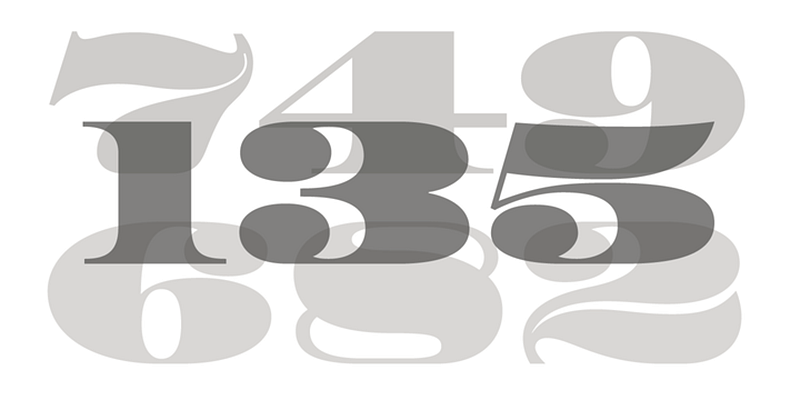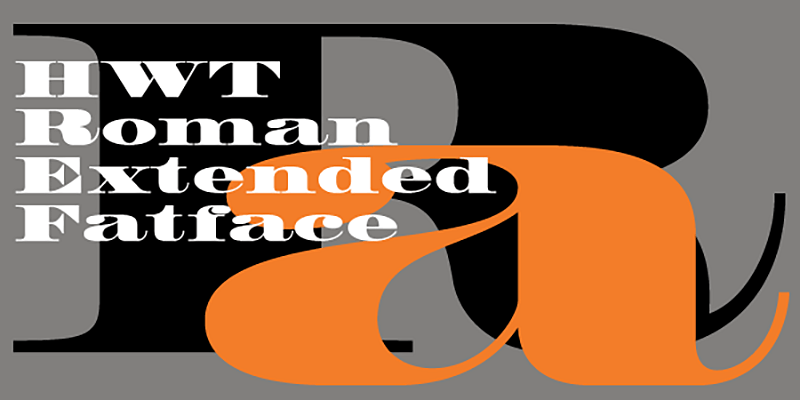
HWT Roman Extended Fatface is credited to Robert Thorne just after 1800 in England, is considered to be the first type style designed specifically for display, rather than for book work.